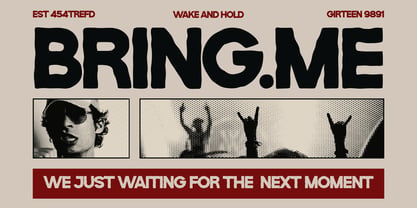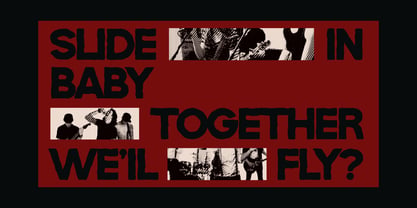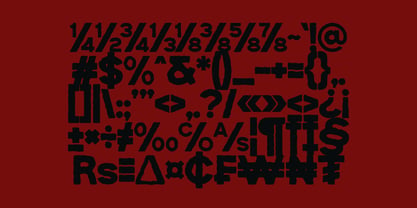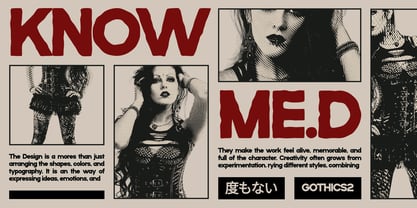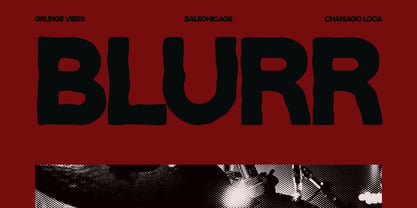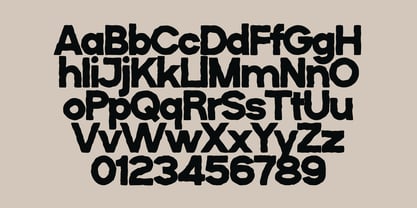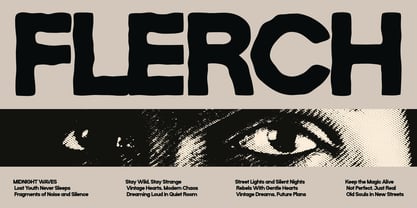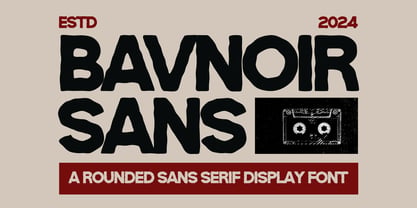
Bavnoir
La famille de polices Bavnoir a été conçue par Gilang Ternadho et publiée par Maikohatta. Bavnoir contient 1 styles. En savoir plus sur cette famille
Introducing our new product Bavnoir – Rounded Sans Serif Display
Bavnoir is a Rounded Sans Serif Display with a strong and playful character. Featuring thick strokes and smooth rounded edges, this font delivers a bold visual impact that makes any design stand out. Its heavy style and friendly shapes create a perfect balance between modern aesthetics and fun personality.
Bavnoir is highly versatile and works perfectly for a wide range of creative projects such as logos, branding, posters, social and more. Whether you want to create eye-catching titles or energetic branding, this font will add a powerful and distinctive touch to your design.